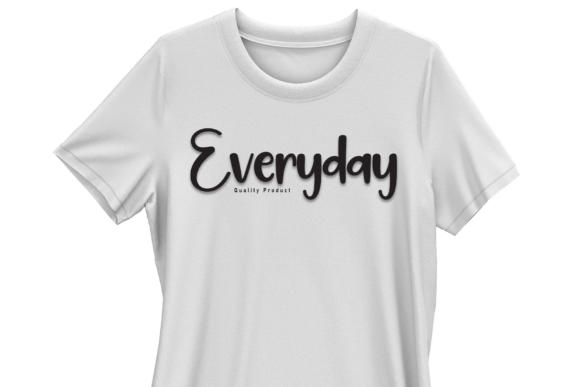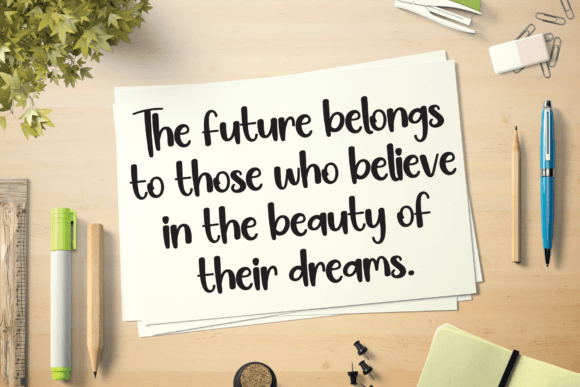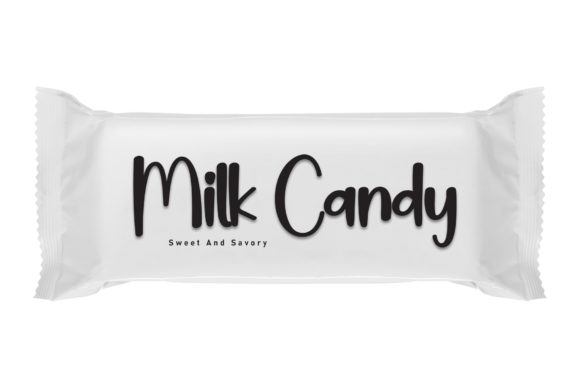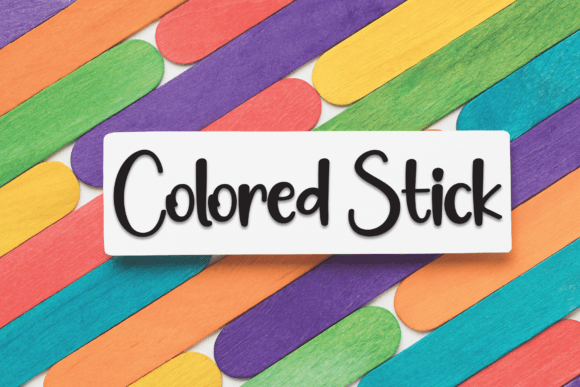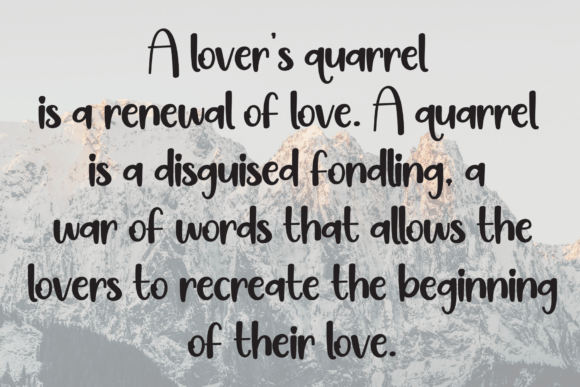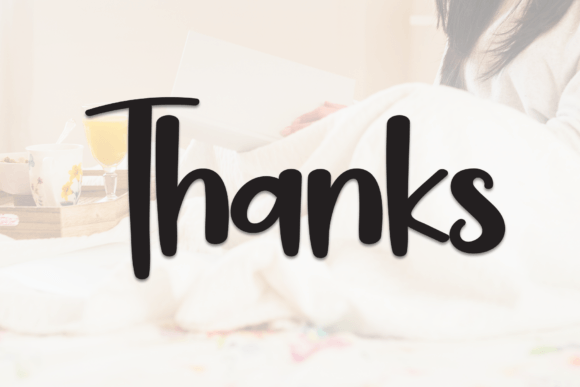
Introducing Blanket Font: The Whimsical and Charming Handwritten Display Font
Are you looking for a font that can add a touch of magic and whimsy to your designs? Look no further than Blanket Font, a lovingly created, handwritten display font that is sure to bring life and cheery charisma to your wedding invitations, cards, and design masterpieces. With its endearing and playful character, Blanket Font is the perfect choice for designers and crafters who want to add a dash of personality to their creations.
The Story Behind Blanket Font
Blanket Font is more than just a font – it’s a way to tell a story. Its whimsical and charming design is inspired by the warmth and coziness of a blanket, evoking feelings of comfort and joy. Whether you’re designing a wedding invitation, a greeting card, or a DIY craft project, Blanket Font is the perfect choice to add a touch of personality and whimsy to your design.
What Makes Blanket Font So Special?
So, what sets Blanket Font apart from other fonts? Here are just a few features that make it so special:
- Handwritten with love: Blanket Font is a handwritten display font, carefully crafted with love and attention to detail to ensure that every letter and every word is unique and full of character.
- Playful and charming: With its bouncy and irregular strokes, Blanket Font has a playful and charming personality that is sure to bring a smile to your face.
- Perfect for creative projects: Whether you’re designing a wedding invitation, a greeting card, or a DIY craft project, Blanket Font is the perfect choice to add a touch of whimsy and personality to your design.
How to Use Blanket Font in Your Designs
Using Blanket Font in your designs is easy. Here are a few tips to get you started:
- Pair it with other fonts: Blanket Font pairs perfectly with other fonts, such as serif and sans-serif fonts, to create a unique and eye-catching design.
- Use it for headings and titles: Blanket Font is perfect for headings and titles, adding a touch of whimsy and personality to your design.
- Add it to your digital projects: Blanket Font can be used in a variety of digital projects, including social media graphics, blog posts, and website designs.
Why Designers and Crafters Love Blanket Font
Designers and crafters love Blanket Font for many reasons. Here are just a few:
- Unique and creative: Blanket Font is a unique and creative font that allows designers and crafters to add a touch of personality to their designs.
- Perfect for a variety of projects: Blanket Font can be used in a variety of projects, from wedding invitations and greeting cards to DIY craft projects and digital designs.
In conclusion, Blanket Font is a whimsical and charming handwritten display font that is sure to bring life and cheery charisma to your designs. With its endearing and playful character, it’s the perfect choice for designers and crafters who want to add a dash of personality to their creations. Whether you’re designing a wedding invitation, a greeting card, or a DIY craft project, Blanket Font is the perfect choice to add a touch of magic and whimsy to your design.